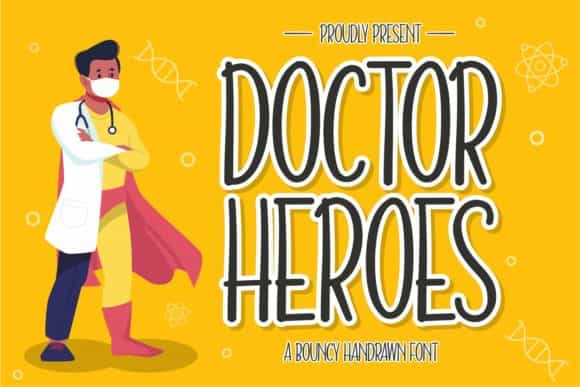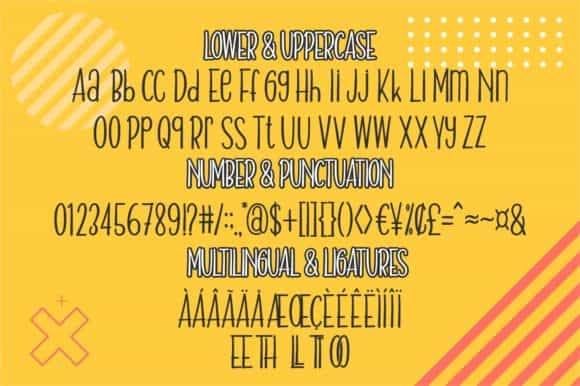
Doctor Heroes embodies authenticity, fun and quirkiness. It’s clean and eccentric The display font is the ideal option for your branding, logos social media, as well as artistic DIY projects.